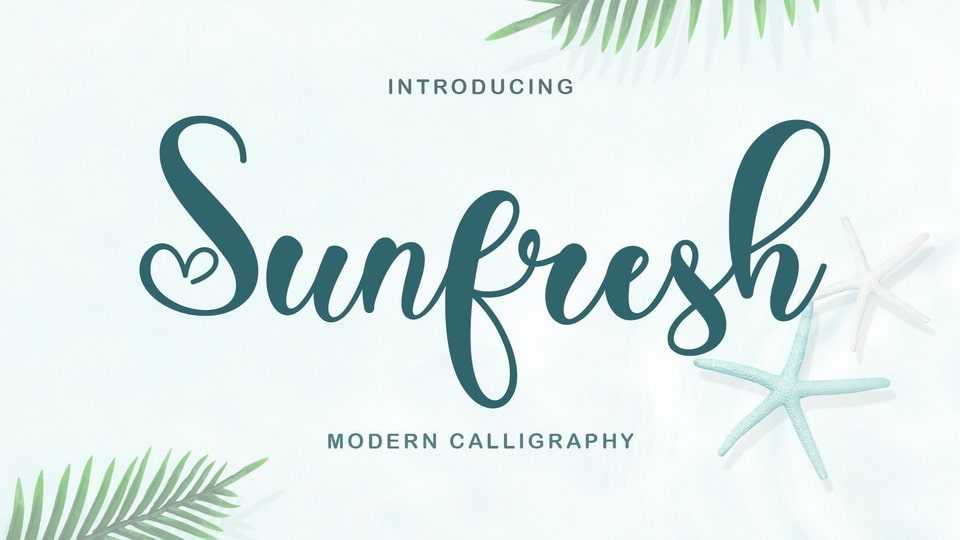
Download Sunfresh font, a beautiful and delightful script typeface. Its bright and fresh Sunfresh character is perfect for your summer projects, greeting cards, holiday promos, blogs, or anything your soul desires.
Designer: Selvia Design